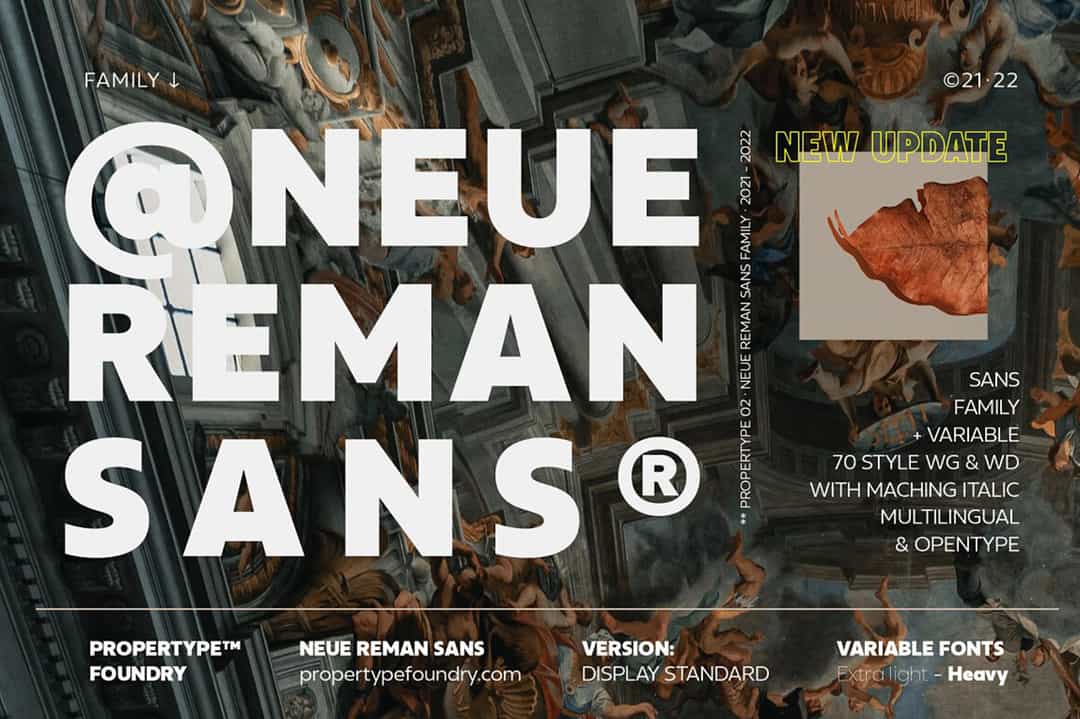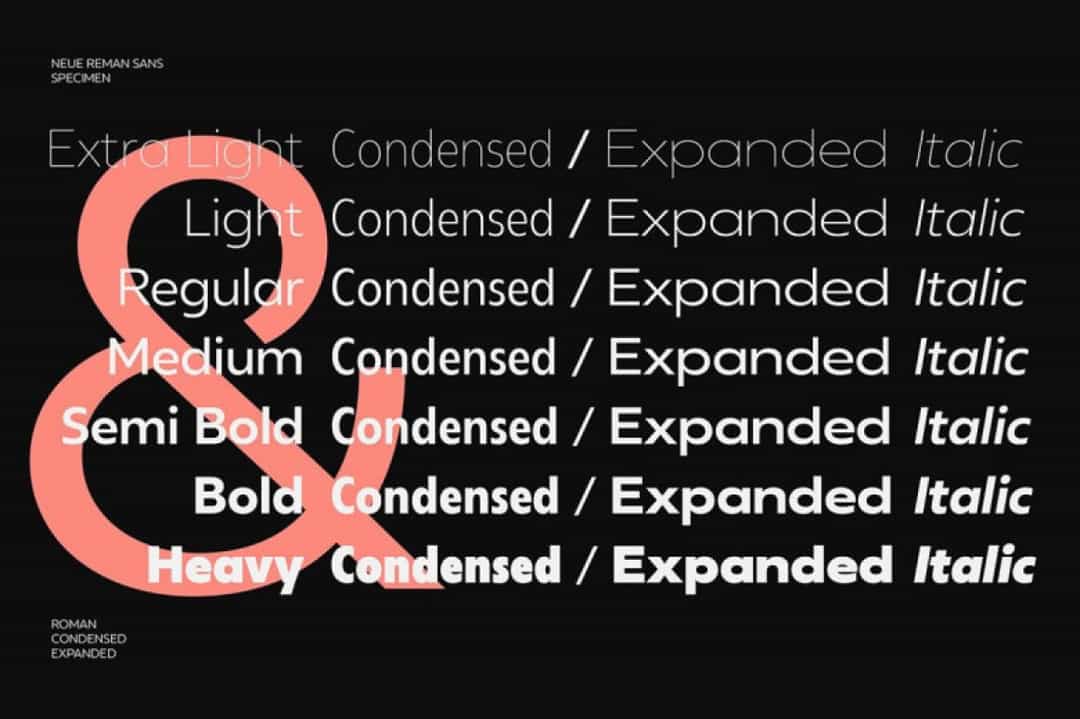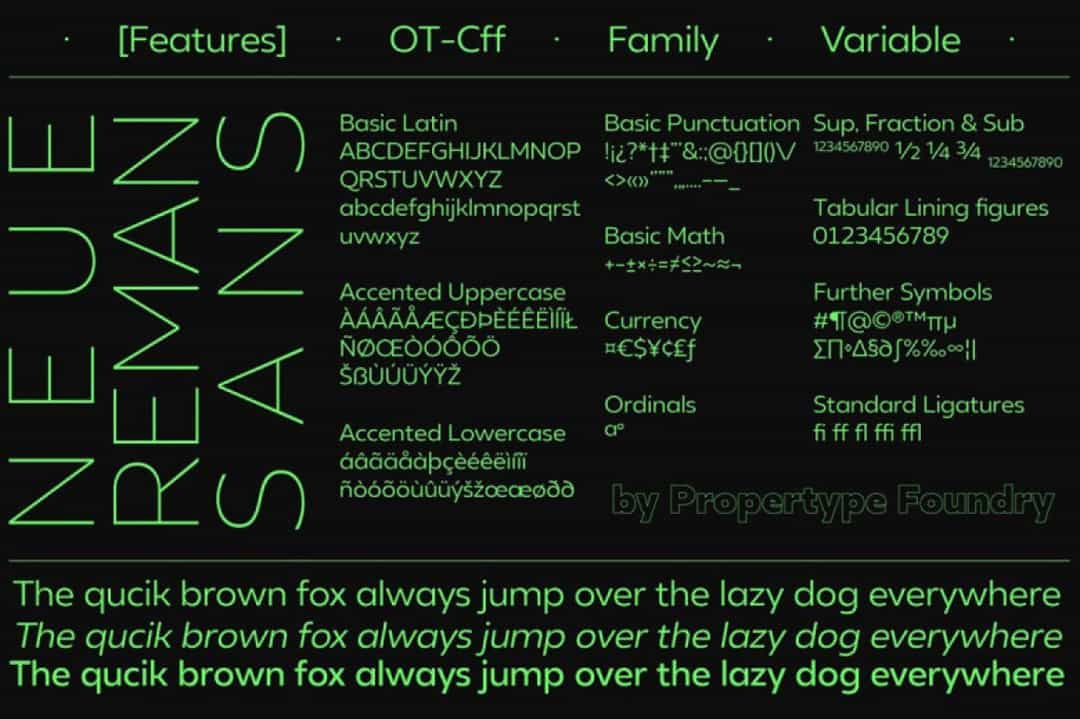
Neue Reman Sans features 306 glyphs – making it the first edition of the Neue Reman Family to include regular ligatures and an assortment of fractions and figures. We designed Neue Reman for use in various projects such as websites, systems printing, embedding server screens into websites, display and digital advertisements branding as well as logos titles headlines teks and more.